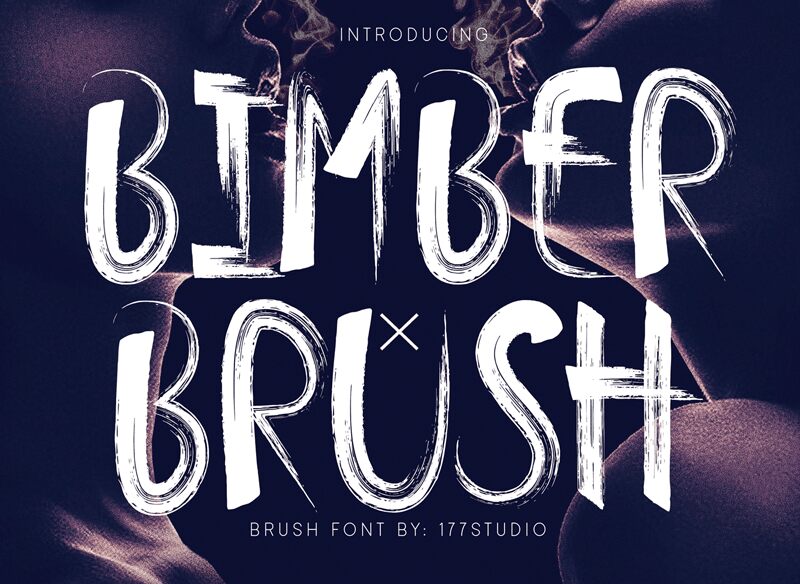
Bimber Brush is entirely hand-painted sans serif. A raw, bold, condensed font, with brushy imperfections and an earthy realism. Inspired by Lettering Tattoo Style. came with open type features for logotype, Barbershop, badge, Tattoo Artist, Tattoo merchandise, tattoo letters and any more.
Bimber Brush